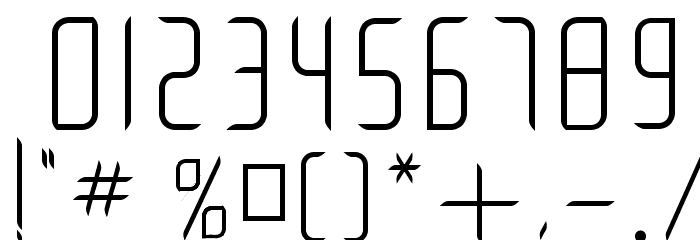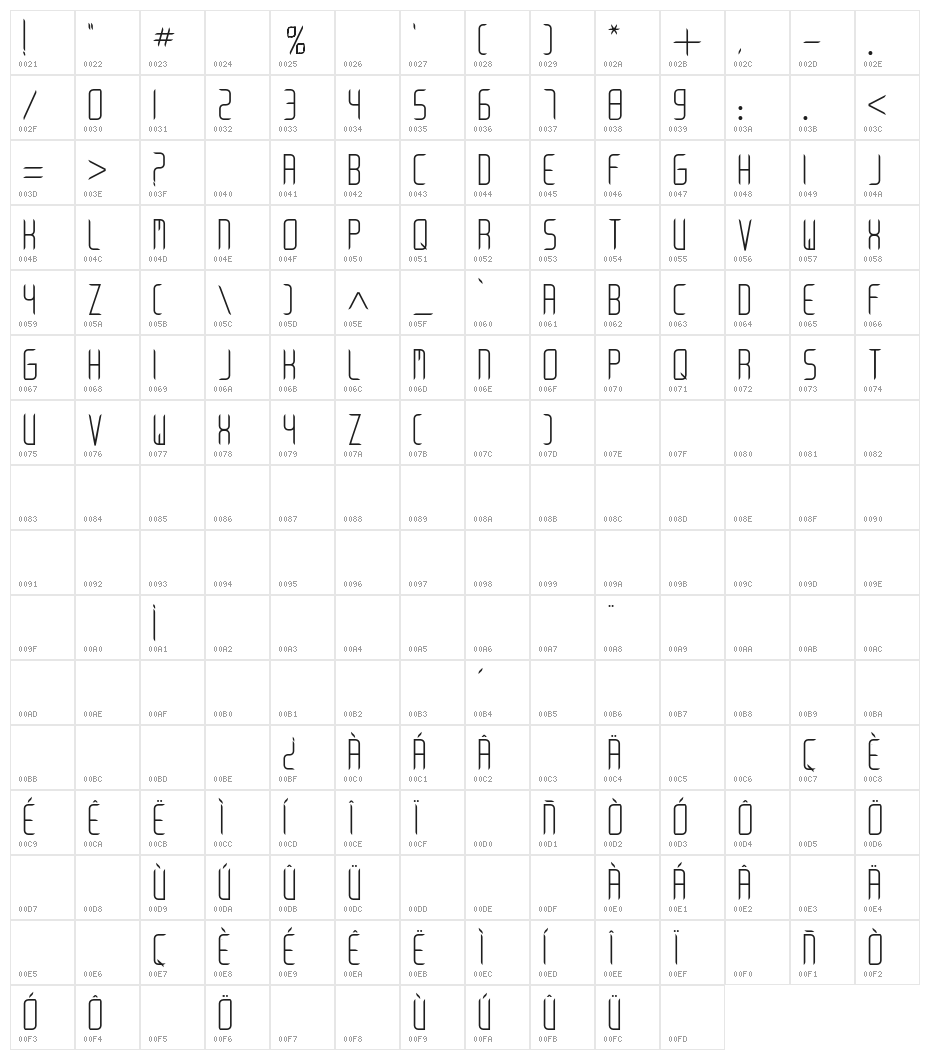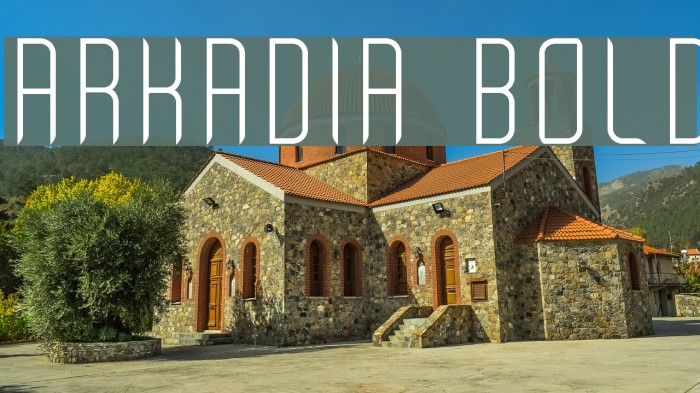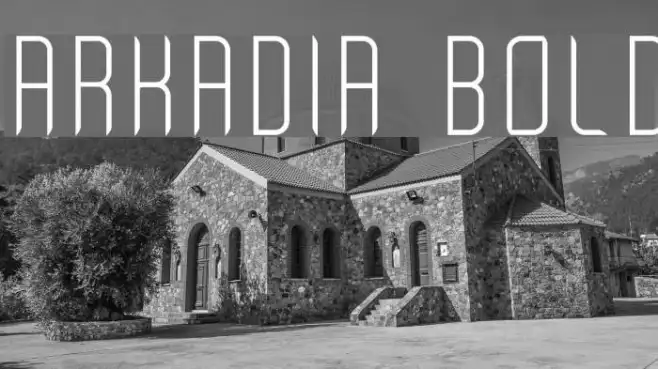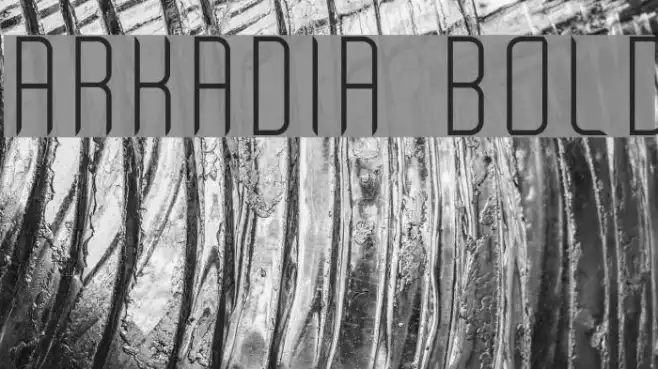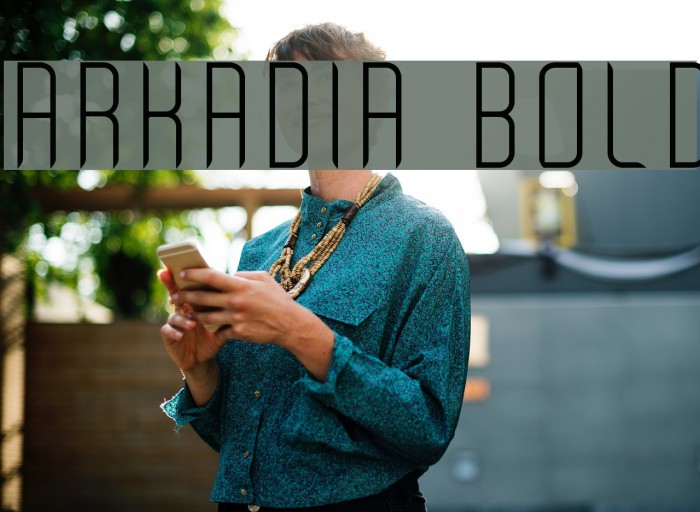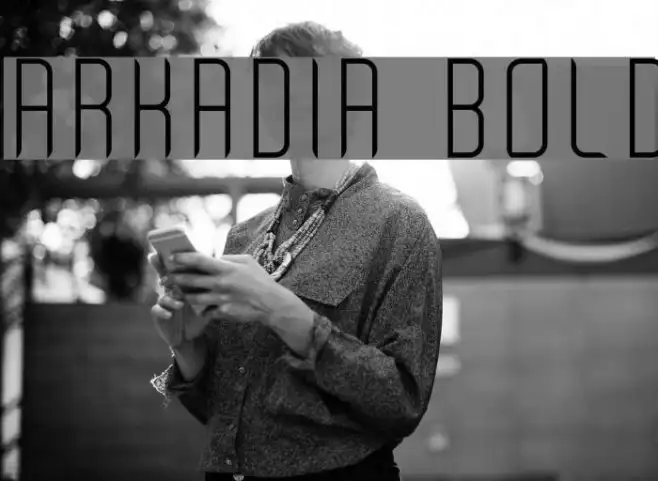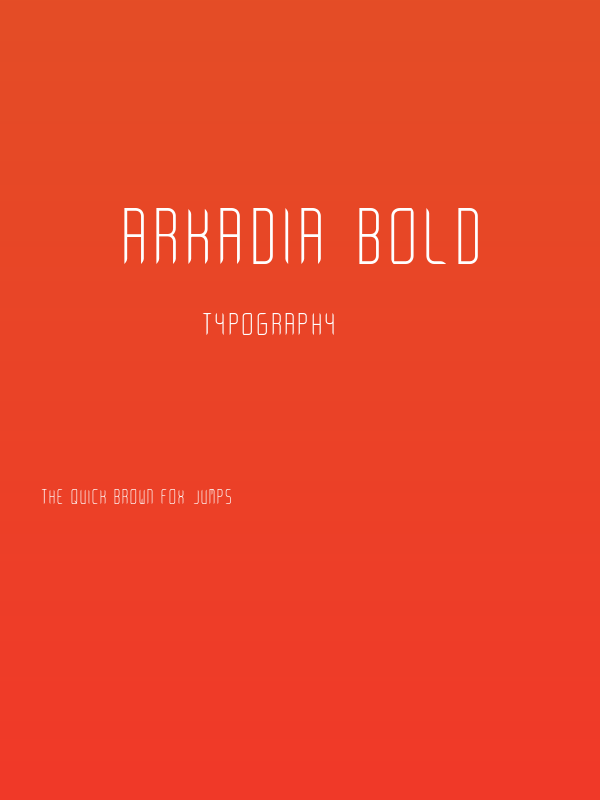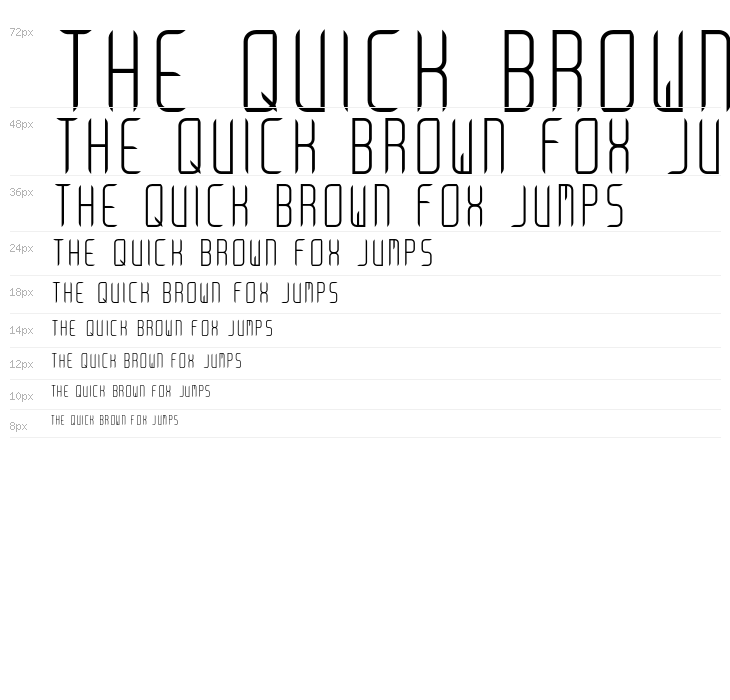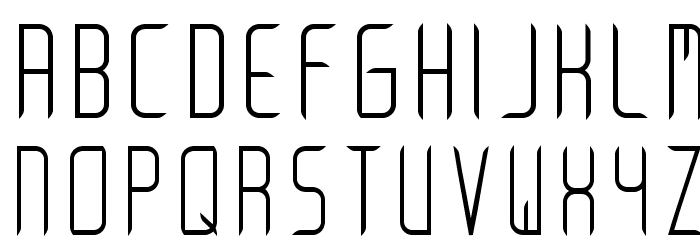
Arkadia bold Font
Arkadia bold Description
This font features a modern and futuristic design with a geometric structure. The characters are tall and narrow, giving it a sleek and sophisticated appearance. The strokes are consistent in width, providing a uniform look across all characters. The uppercase letters have a distinct angularity, while the lowercase letters maintain a similar style, ensuring cohesion throughout the typeface. The numerals are clear and easy to read, matching the overall aesthetic. Special characters are included, maintaining the same design principles. This font is ideal for projects that require a contemporary and stylish touch.
| Proposed Projects | Ideal for branding, technology-related designs, futuristic themes, and modern advertising. |